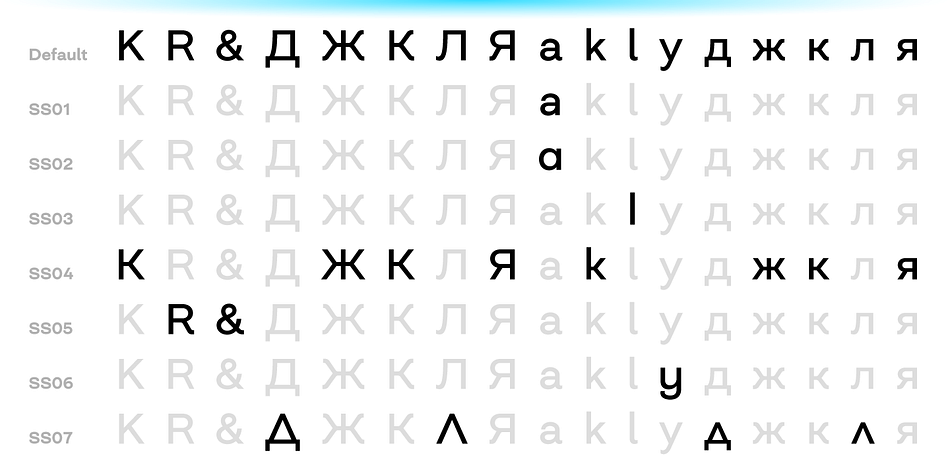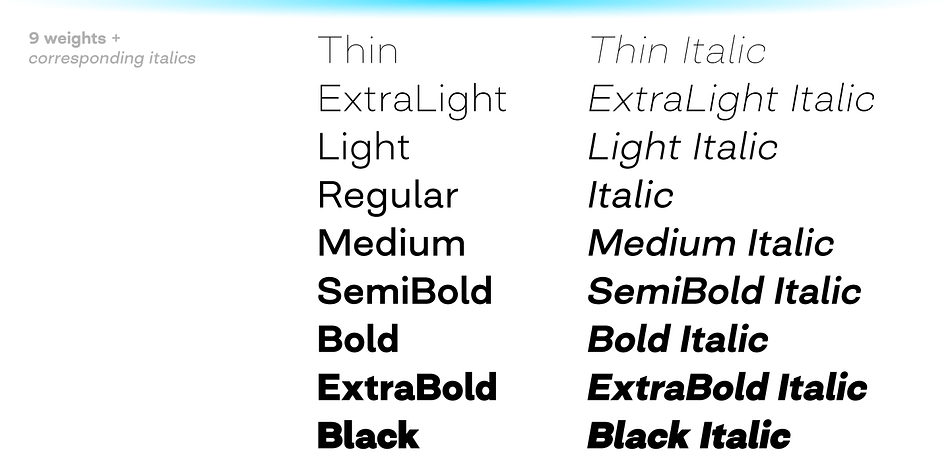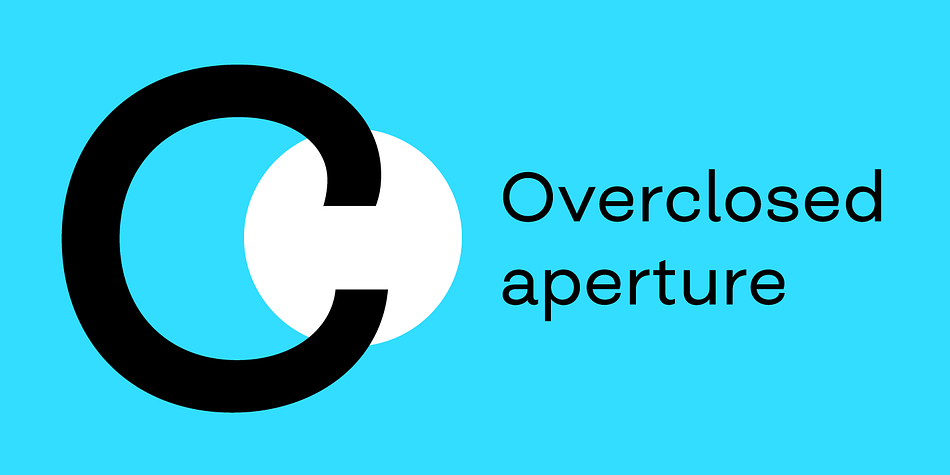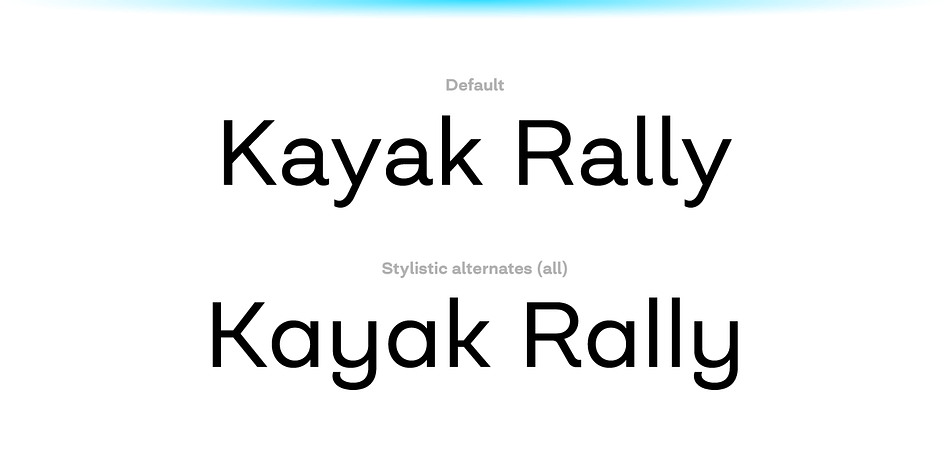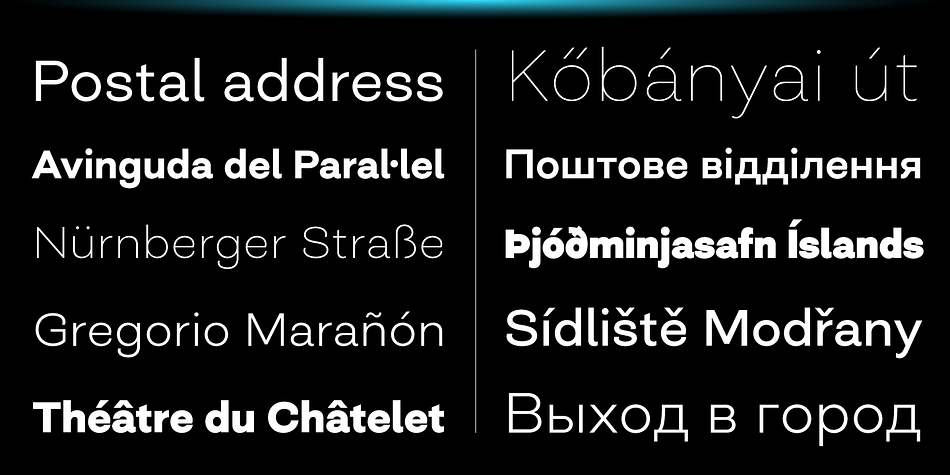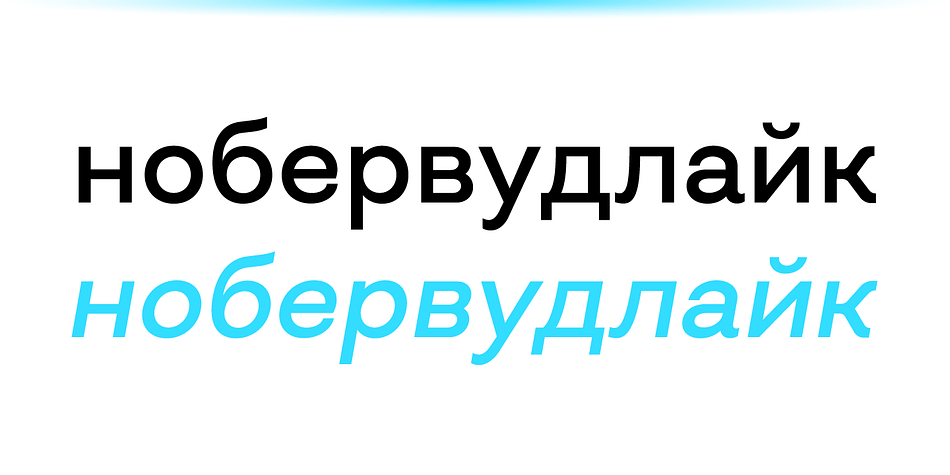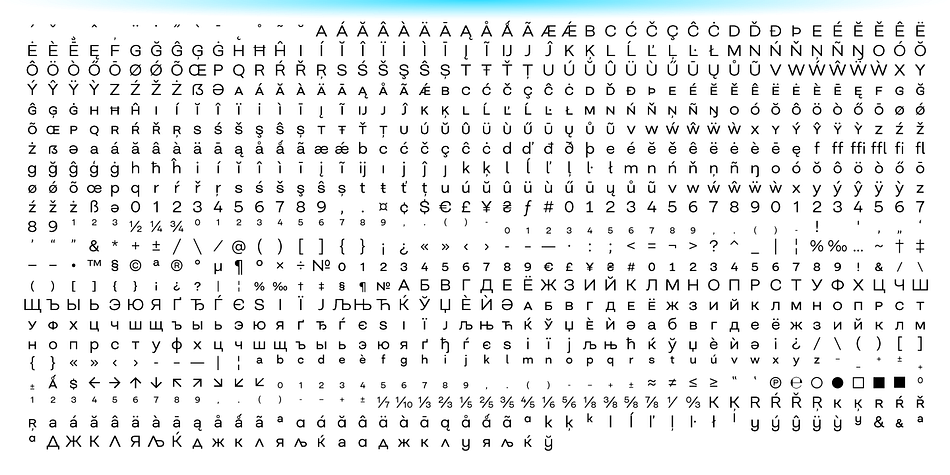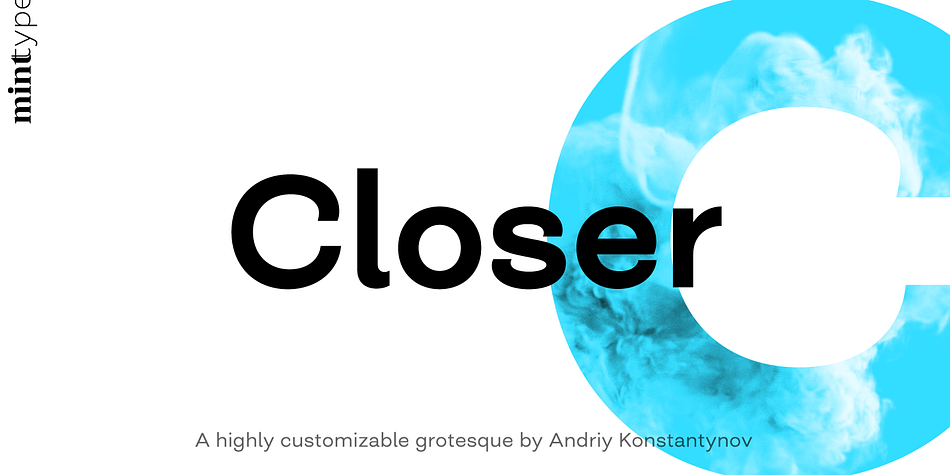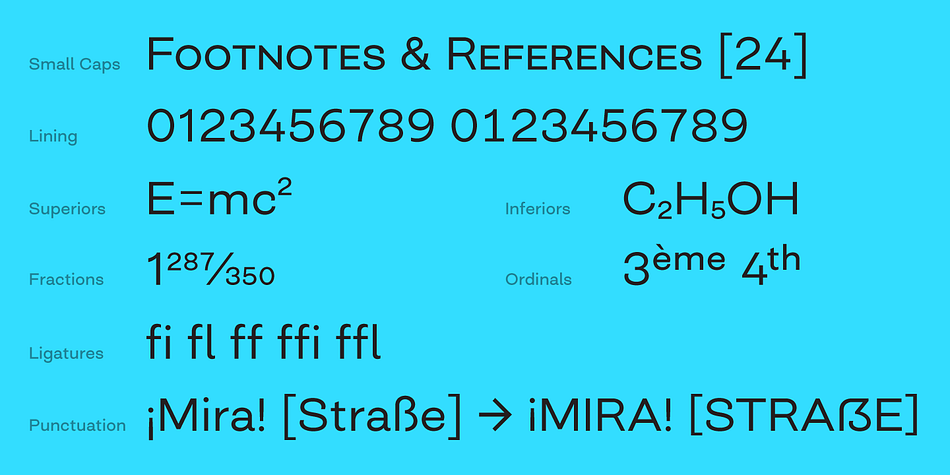
Designed by Andriy Konstantynov, Closer is a sans serif font family. This typeface has eighteen styles and was published by Mint Type.
Closer is a highly customizable Swiss grotesque with overclosed aperture. Being a bit wider than the average grotesque and featuring some humanistic shapes, Closer feels less bland though still relatively neutral.
Closer comes in 9 weights (18 styles altogether), features extensive language support including Cyrillic and is highly customizable with 7 stylistic sets to mix and match.